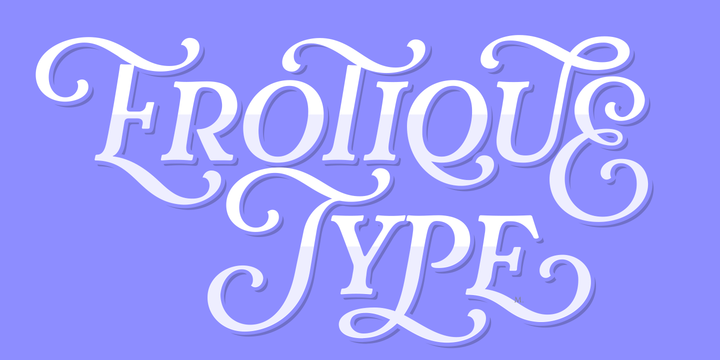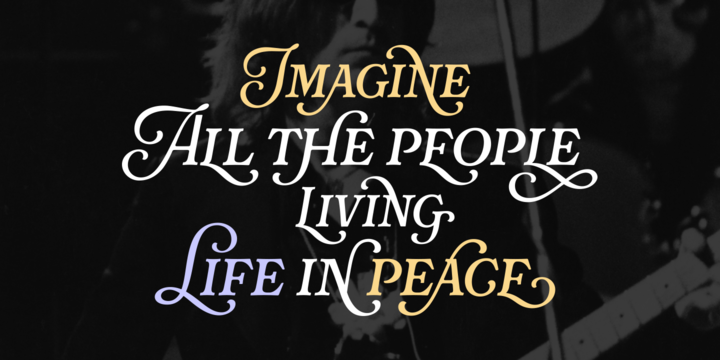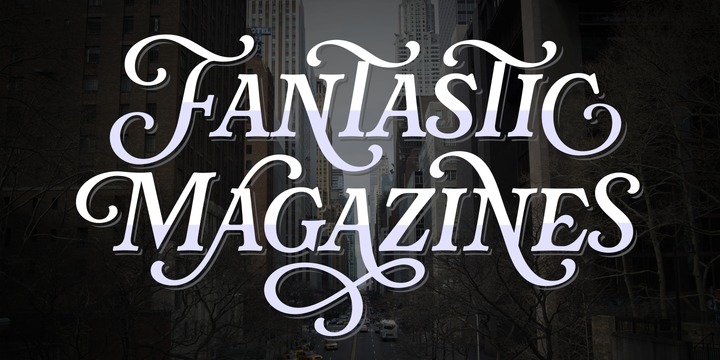
To Rafaella, a menina dos cachos. We, designers, have grown accustomed to see that lowercase letters not only in calligraphy but also in typography (1) may be very playful and decorative: Almost every part of them can become a potential swash, ligature or decorative accolade (2) if the designer has some expertise regarding this matter.
More However, since lately we are living in an era that elevates the status of handcrafts, lettering has gained a lot of ground in different kinds of mediums, and with it theres a sort of overuse of capitals.
This may be due to the reason that lettering pieces need a high impact to convey their messages and many times big capitals are the only solution.
With this in mind, I started Rafaella: A font consisting entirely of capitals which go from dispossessed to very decorative.
Rafaella has its ductus and forms vaguely based on the 1970s Bookman-like styled fonts.
The presence and behaviour of serifs and ball terminals in this is style were the perfect excuse to make really attractive aternates which the user can choose from the glyphs panel.
The result is a font full of life, very playful yet formal, that due to its roman style can be combined with (and between) a wide range of other styles of expressive scripts or geometrical fonts with nice results (3).
Try also Rafaella Shade Solo combined with Rafaella or Rafaella Bold to have a layer effect so the word is emphasized.
NOTES (1) See my fonts Erotica from 2013 or Dream from 2014. (2) Accolades is a wonderful word that refers to the ornaments made around the words in the spencerian style of calligraphy (3) Combinations often seen in different pieces of lettering were usually a contrast of style is wanted.